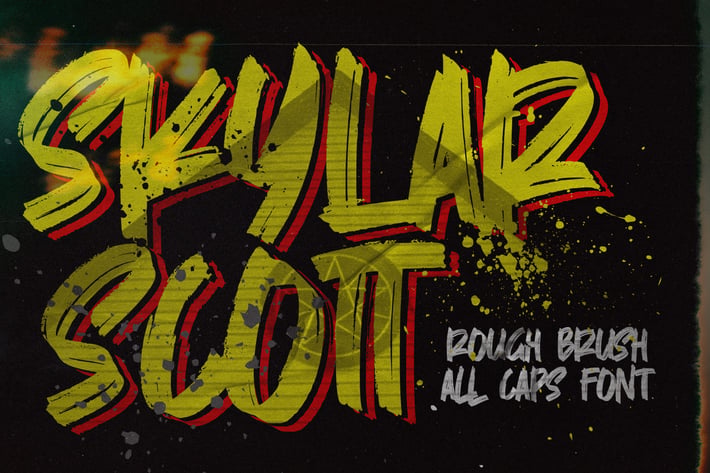
Skylarr Scott - Handwritten Brush font
meet = Skylarr Scott - Handwritten Brush font with a Rough style and dramatic movement.
+ Ligature
+ Multilingual